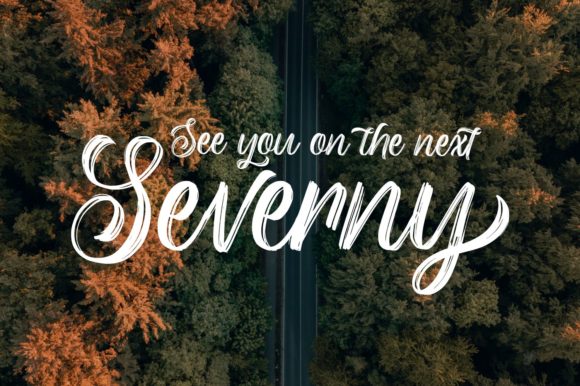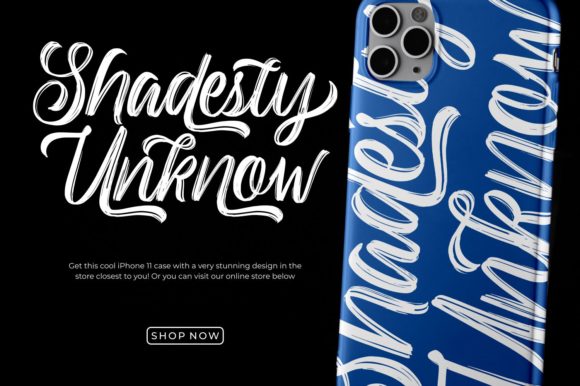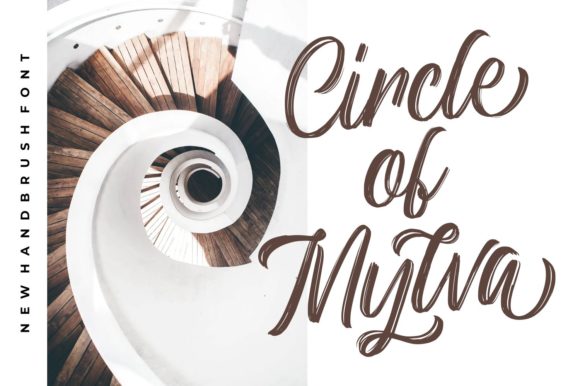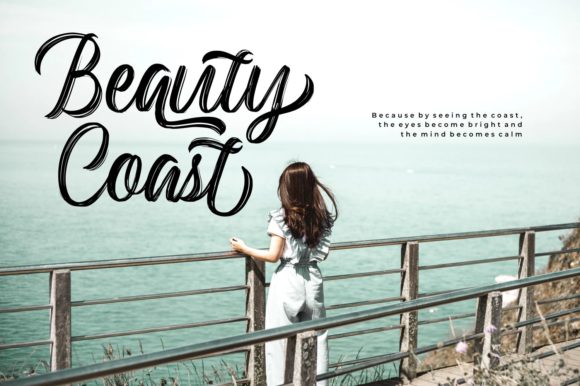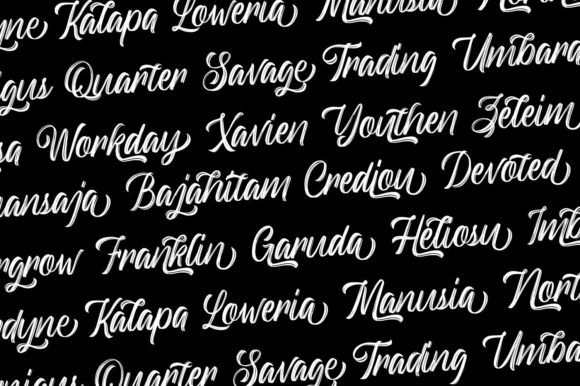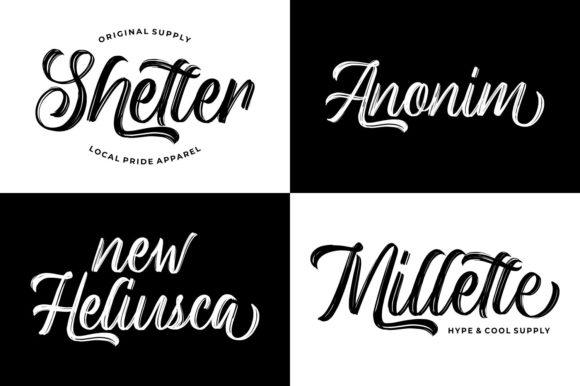
Introducing Backrush Font: Elevate Your Designs with Elegant Handwritten Style
In the world of digital design, fonts play a pivotal role in conveying messages, evoking emotions, and creating aesthetic appeal. Among the myriad of fonts available, Backrush stands out as a stunning handwritten font that has captured the hearts of designers and crafters alike. Created with the help of a brush pen, Backrush brings a touch of personal and artistic flair to any project. In this article, we’ll delve into the features, benefits, and uses of the Backrush font, exploring how it can elevate your designs to new heights.
The Making of Backrush: A Brush Pen’s Touch
Backrush is a beautifully crafted handwritten font, brought to life using a brush pen. This method of creation gives the font its unique, organic feel, reminiscent of traditional calligraphy and handwriting. The use of a brush pen in its creation lends Backrush a personal touch, making it perfect for projects that require a sense of warmth and authenticity.
One of the standout features of Backrush is its PUA (Private Use Area) encoding. This means that users can easily access all the glyphs and swashes included in the font, allowing for greater flexibility and creativity in design. PUA encoding ensures that designers can make the most out of Backrush, incorporating its beautiful alternates and glyphs seamlessly into their work.
Key Features of Backrush Font
- Varying Baseline: Backrush features a dynamic baseline, which adds to its organic and handcrafted feel. This variability brings a natural flow to your designs, making them more engaging and visually appealing.
- Smooth Lines: The font boasts smooth, fluid lines that contribute to its elegant appearance. These smooth lines ensure that your designs look refined and sophisticated.
- Gorgeous Glyphs: Backrush comes with a range of beautiful glyphs, providing designers with ample opportunities to add detail and personality to their work.
- Stunning Alternates: The font includes stunning alternate characters, allowing for further customization and creativity. These alternates enable designers to vary the look of their text, adding depth and interest to their designs.
The Versatility of Backrush
Backrush is incredibly versatile, making it suitable for a wide range of design projects. Whether you’re working on branding materials, packaging, digital media, or craft projects, Backrush can add a touch of elegance and personality. Its handwritten nature makes it particularly effective for projects that aim to convey a sense of warmth, friendliness, and approachability.
Using Backrush for Spectacular Designs
With Backrush, the possibilities are endless. Here are a few ideas on how to use this beautiful font to create spectacular designs:
- Branding and Logotypes: Use Backrush to create unique and memorable brand identities. Its elegant, handwritten style can help brands stand out and convey their message in a personal and compelling way.
- Wedding and Event Stationery: Add a touch of romance and sophistication to wedding invitations, stationery, and event materials with Backrush.
- Digital Media: Incorporate Backrush into your digital projects, such as blog headers, social media graphics, and website designs, to give them a personal and artistic flair.
- Crafting and DIY Projects: Perfect for crafters, Backrush can be used in various DIY projects, including handmade cards, journaling, and scrapbooking.
Backrush is more than just a font; it’s a tool for designers and crafters to express their creativity and bring a personal touch to their projects. With its beautiful handwritten style, PUA encoding for easy access to glyphs and swashes, and versatile design, Backrush is an excellent choice for anyone looking to elevate their designs. Whether you’re a professional designer or a hobbyist, Backrush has the potential to transform your work and make it truly spectacular.